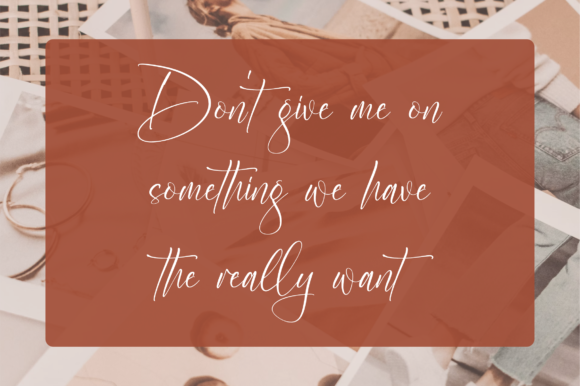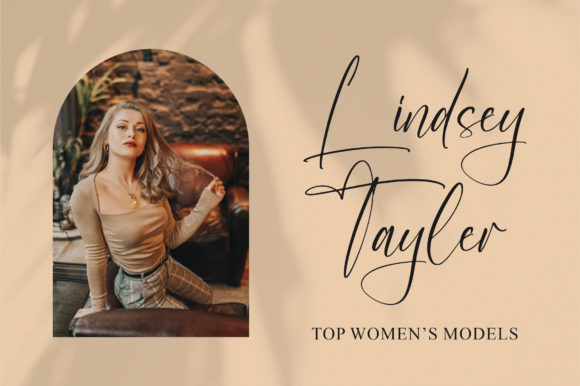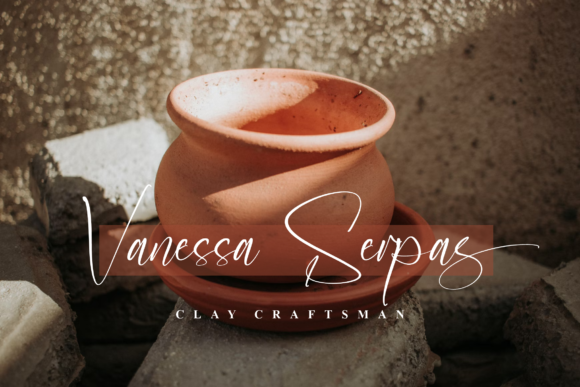
Introduction to Rusticlake Font
Imagine you’re sitting in a cozy café, sipping on a warm cup of coffee, surrounded by the gentle hum of creative energy. You’re working on a new project, pouring your heart and soul into every detail, and you need the perfect font to bring it all together. This is where the Rusticlake Font comes in – a free-flowing script font that exudes high-quality vibes and adds a touch of elegance to any design.
As a designer, you know the importance of having a reliable design resource that can elevate your creative project. The Rusticlake Font is a valuable addition to any design toolkit, offering a beautiful and balanced character that fits seamlessly with a wide range of design styles.
Key Features of Rusticlake Font
- Rusticlake Font is a high-quality design resource ideal for creative projects that require a unique and charming touch.
- This font is particularly suited for use in watercolor-inspired designs, distressed textures, and other creative projects that require a vintage or antique aesthetic.
- Rusticlake Font is highly versatile and can be used for a wide range of applications, from typography and logo design to digital art and craft projects.
Honest Review: Rusticlake Font
As a designer, I’m always on the lookout for high-quality fonts to elevate my creative projects. Recently, I had the chance to work with the Rusticlake Font, and I must say it’s been a game-changer.
Here are some things that work well with the Rusticlake Font:
- ✨ Unique charm: The Rusticlake Font has a distinctive, vintage feel that adds a touch of elegance to any design.
- ✨ Versatility: I’ve used the font for everything from logos to brochures, and it’s proven to be a reliable choice.
However, there are a few limitations to be aware of:
- ⚠️ Limited character set: The Rusticlake Font has a limited character set, which may not be suitable for projects that require a wide range of characters.
- ⚠️ Not suitable for small text: Due to its vintage style, the font may not be the best choice for small text sizes.
Overall, I’m impressed with the Rusticlake Font and would highly recommend it to designers looking for a unique and high-quality design resource.
To get the most out of the Rusticlake Font, use it in conjunction with a transparent background to create a unique and eye-catching design. You can also experiment with different font sizes, colors, and styles to achieve a high-quality look. Additionally, use the font in a creative project to add a personal touch and make it stand out.
The Rusticlake Font is a versatile design resource that can be used in a variety of creative projects, including graphic design, digital art, and publishing. It’s perfect for creating high-quality designs, such as logos, brochures, and business cards. You can also use the font to add a creative touch to your social media graphics, presentations, and documents.